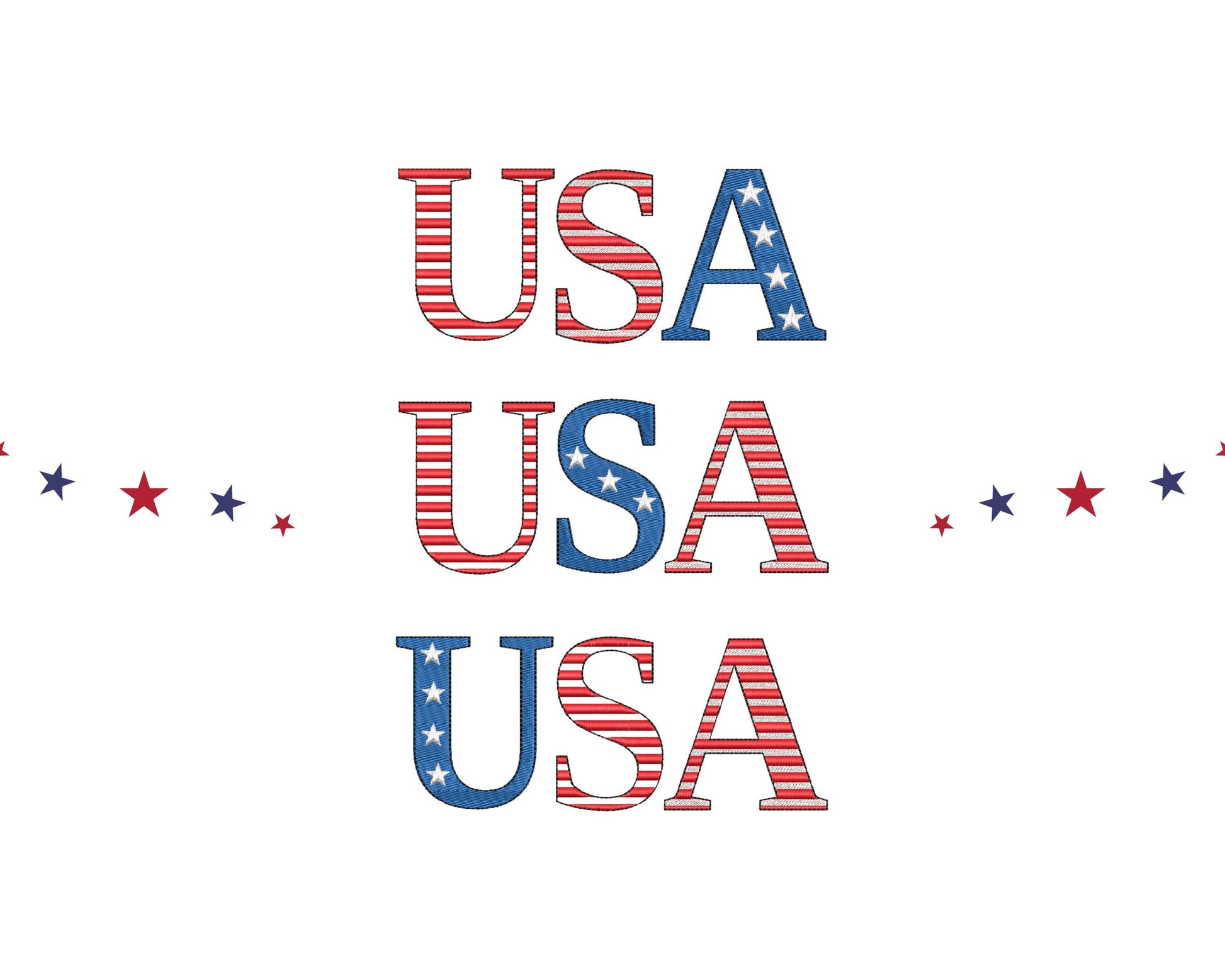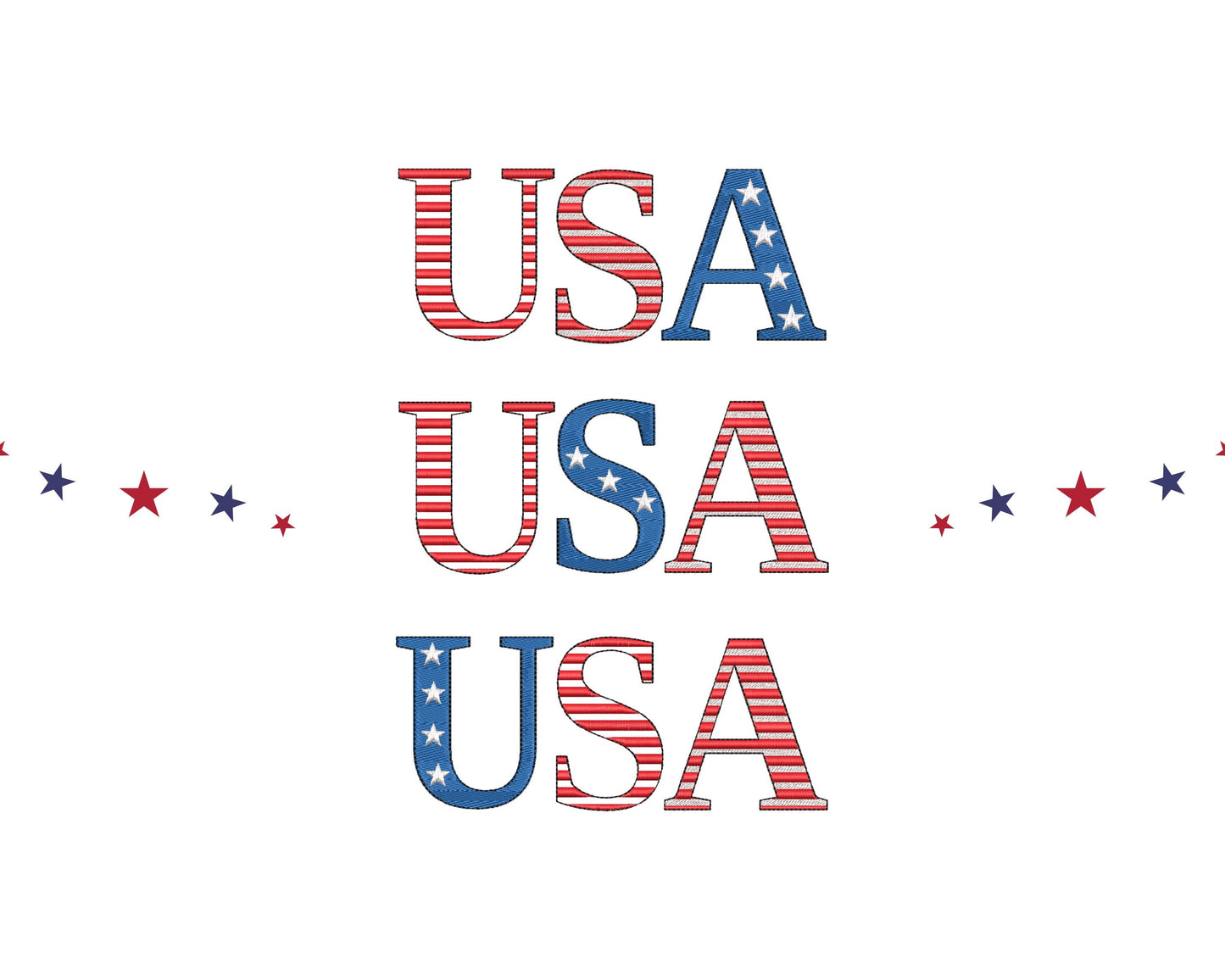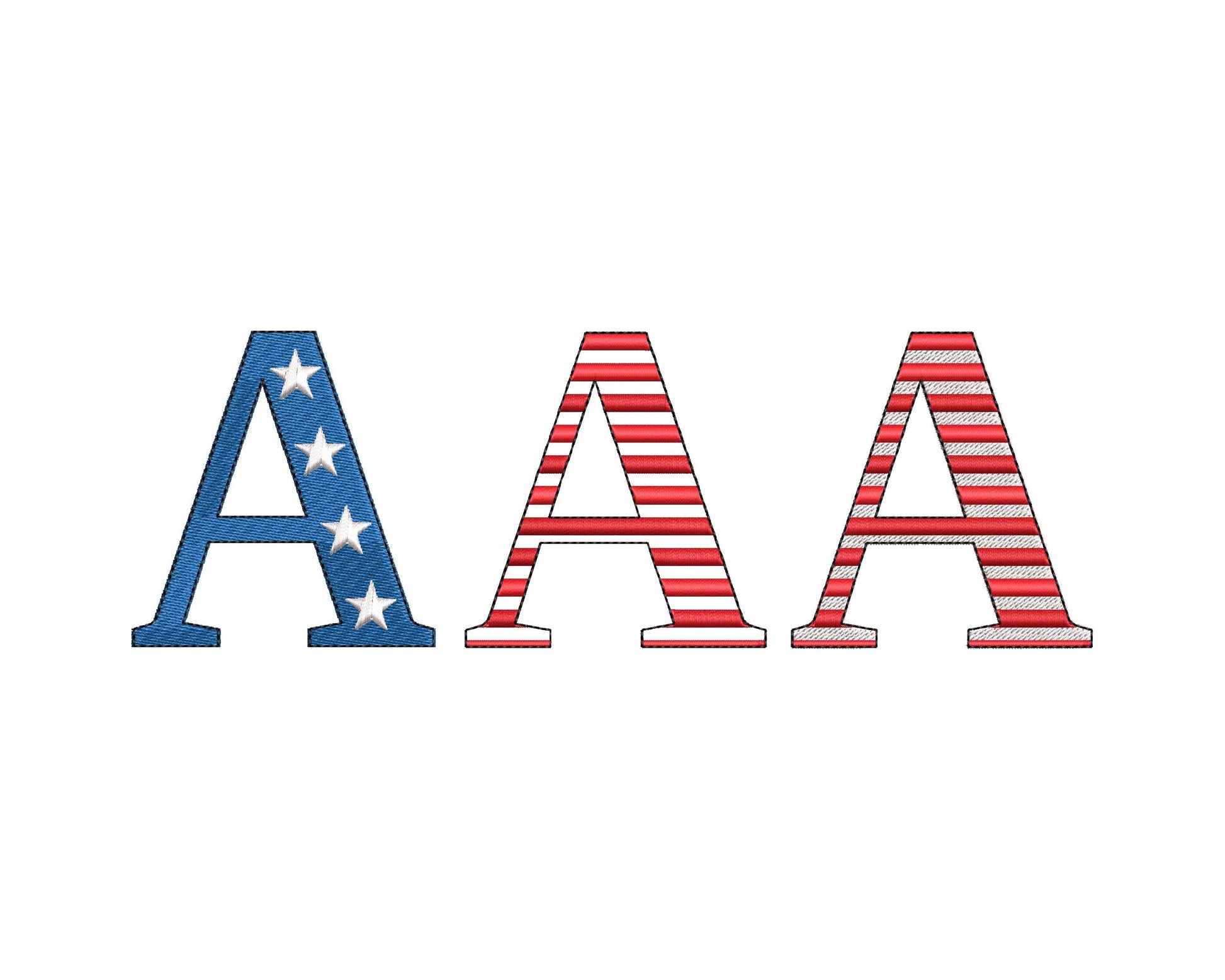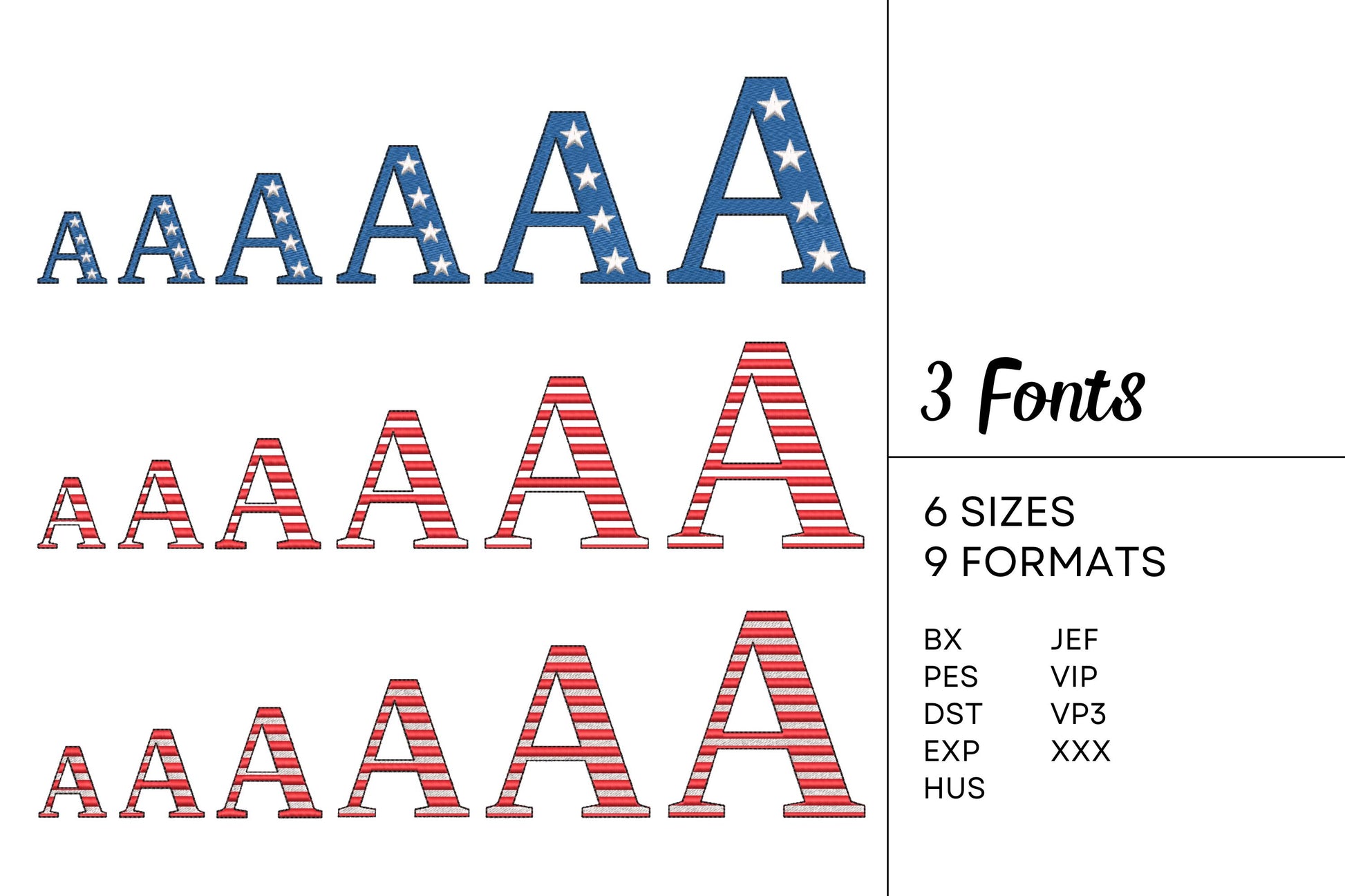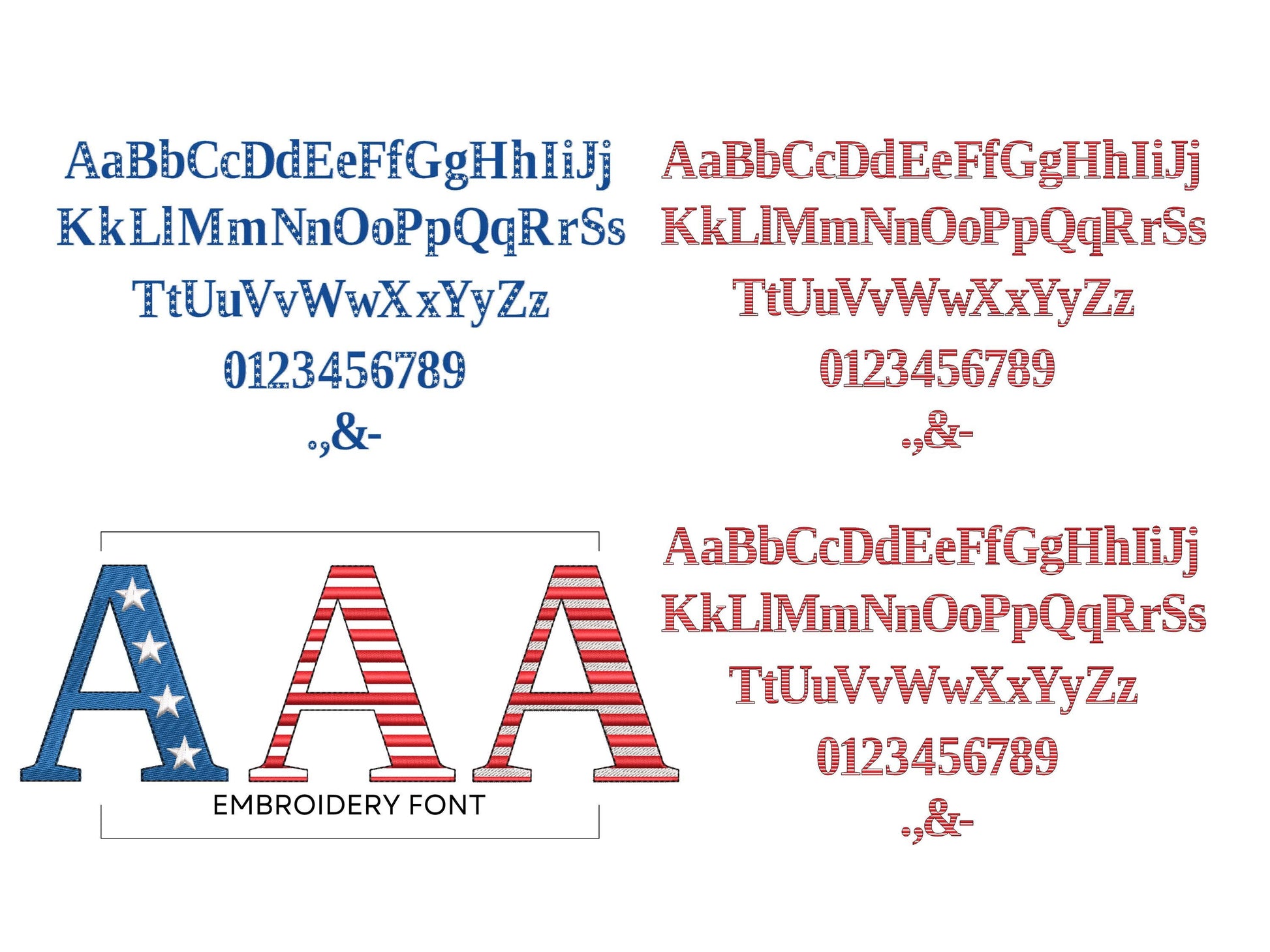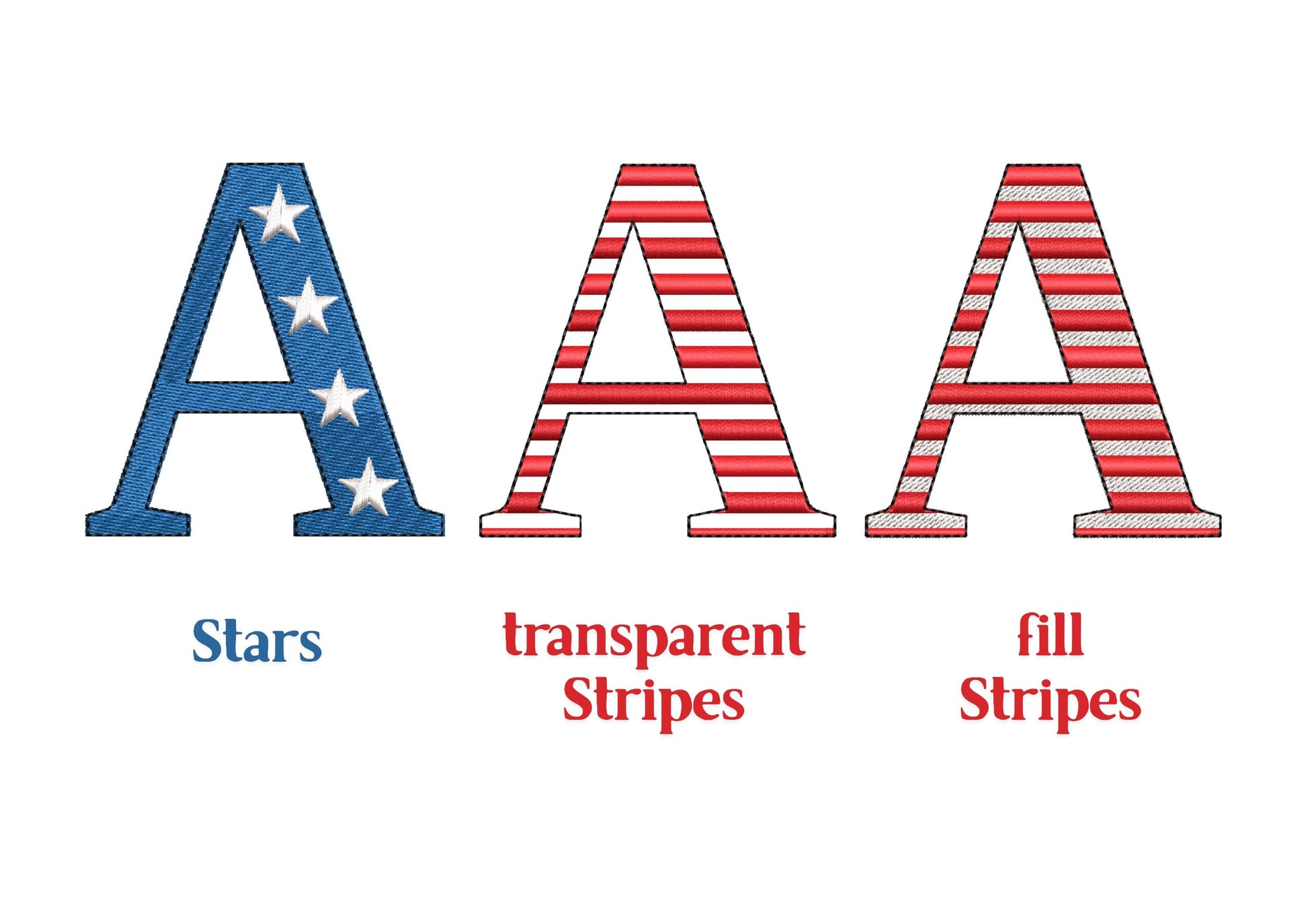
Or click to open the linkThree patriotic stars and stripes block fonts for the 4th of July. Great for flag shirts, pillows, bags and names.
Three fonts: stars in fill stitch, stripes in fill stitch and stripes in satin stitch, where the white stripes let the fabric show through. Each has uppercase and lowercase letters, numbers 0 to 9 and punctuation in six sizes: 1.2, 1.5, 1.8, 2.3, 2.8 and 3.4 inches.